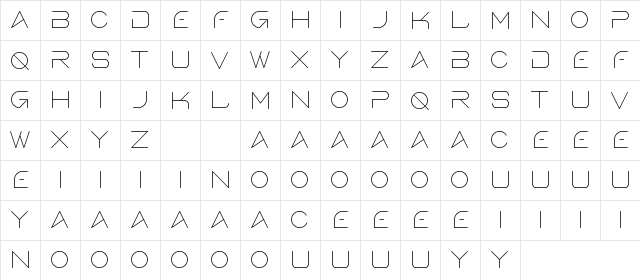
Gerth Demo Light Regular
| Foundry | NihStudio |
| Designer | Nouval & Suci Anita |
Design Context for Gerth Demo Light Typeface
Gerth Demo Light offers clean, dependable letterforms without strong stylistic allegiance, making it a practical choice for designers who need flexibility. The delicate stroke weight brings airiness and refinement to layouts.